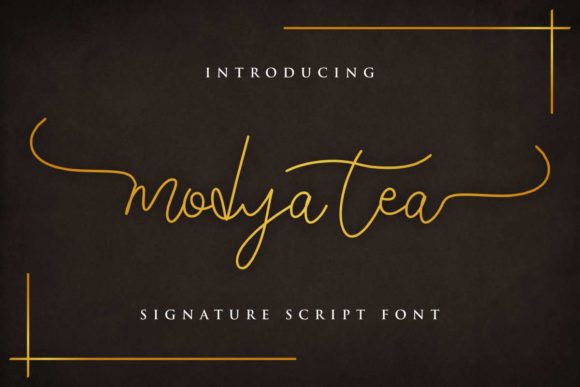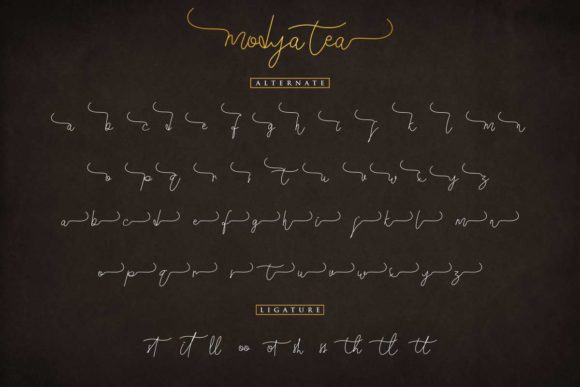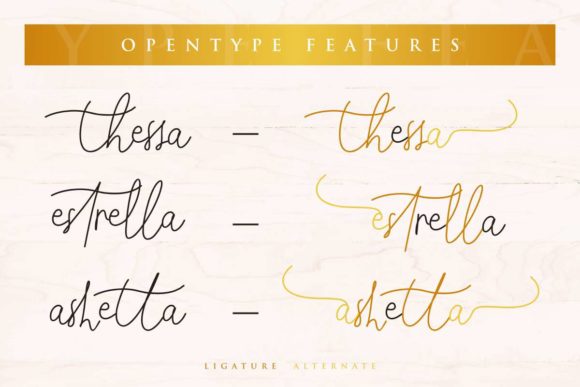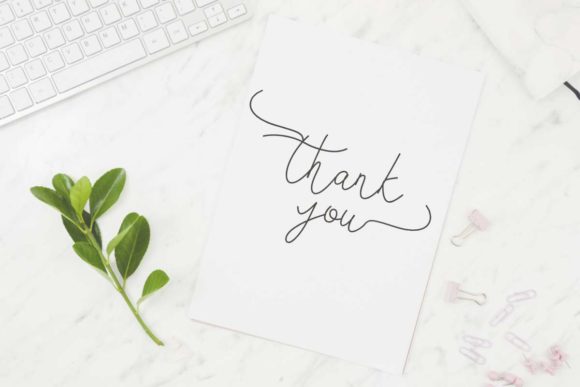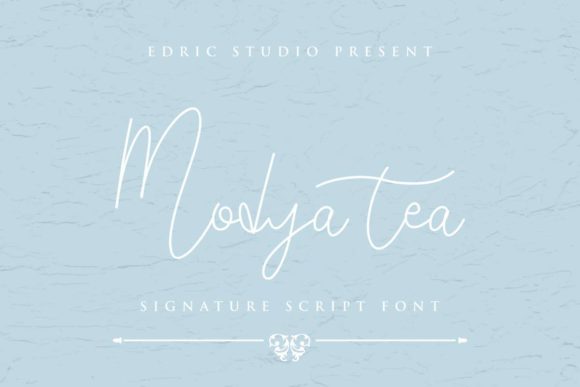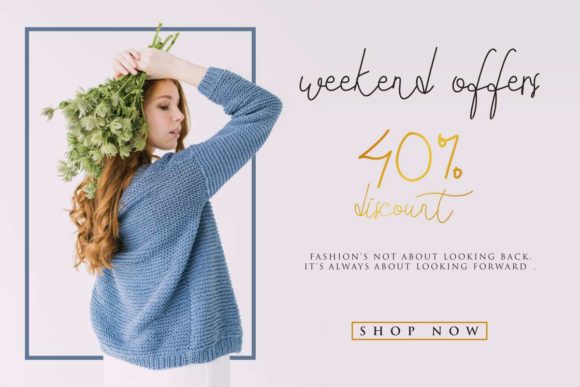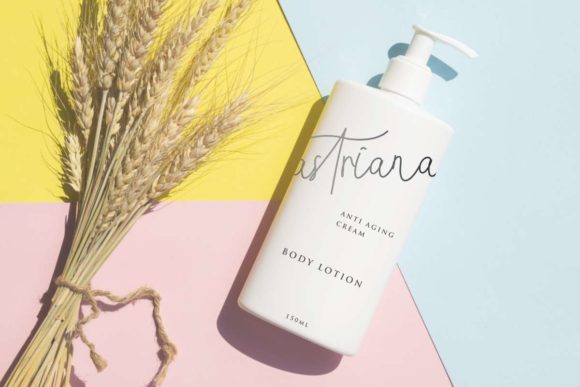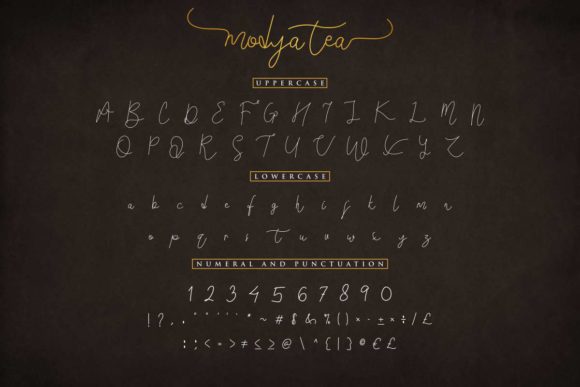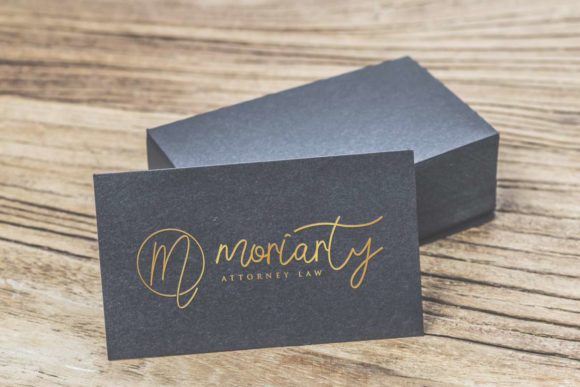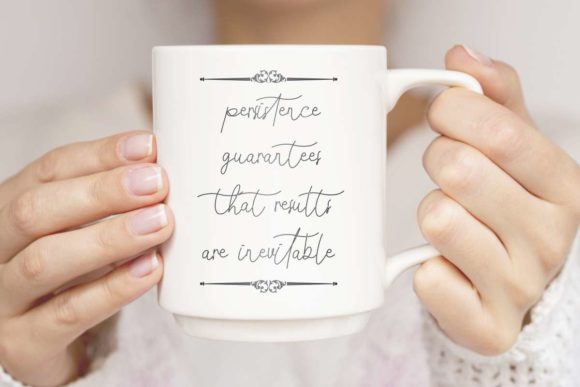
Modya Tea Font
About Modya Tea Font
Modya Tea is an elegant and flowing handwritten font. It is PUA encoded which means you can access all of the glyphs and swashes with ease! It features a varying baseline, smooth lines, gorgeous glyphs and stunning alternates. It maintains its classy calligraphic influences while feeling contemporary and fresh. Fall in love with Modya Tea and bring your projects to the highest levels!